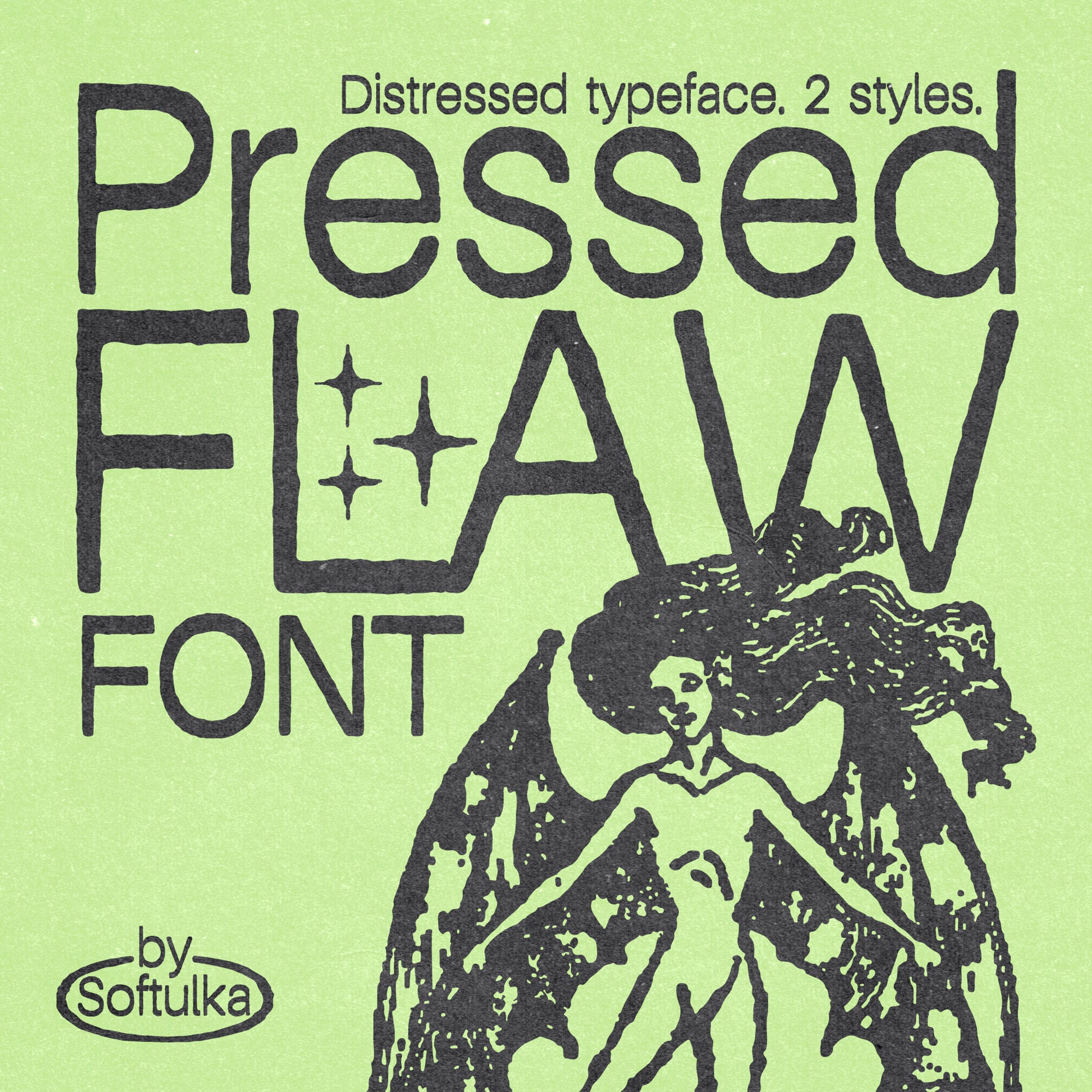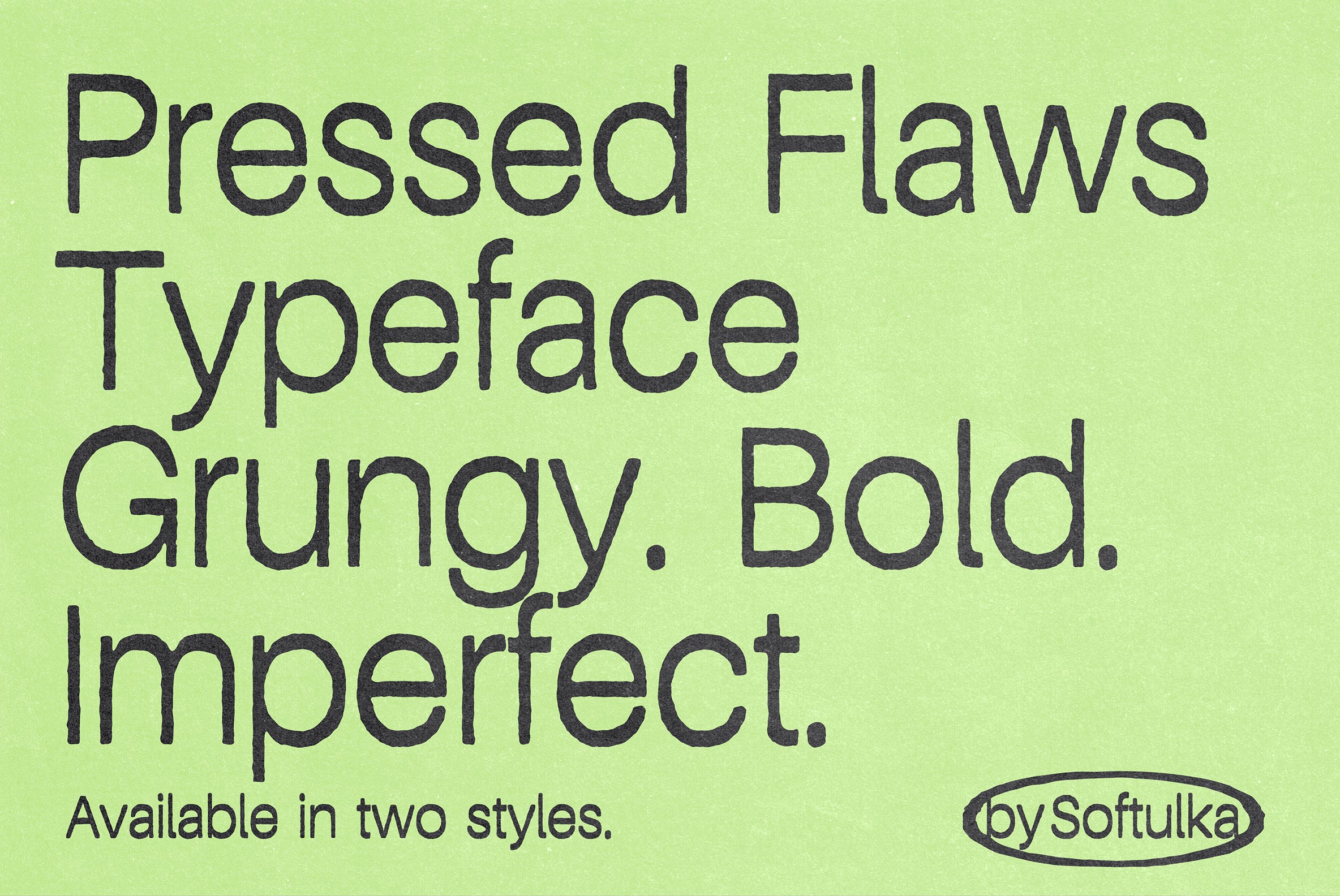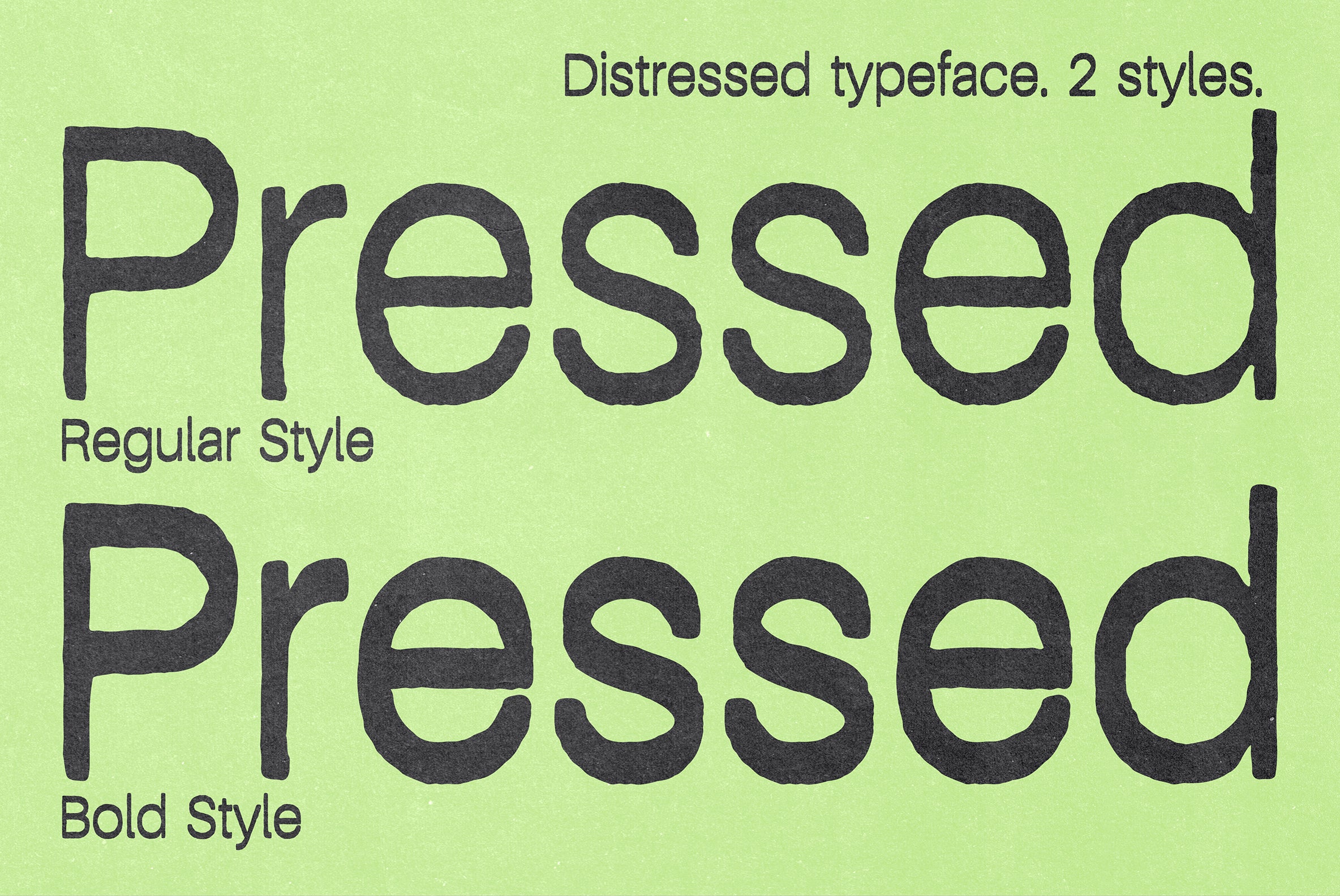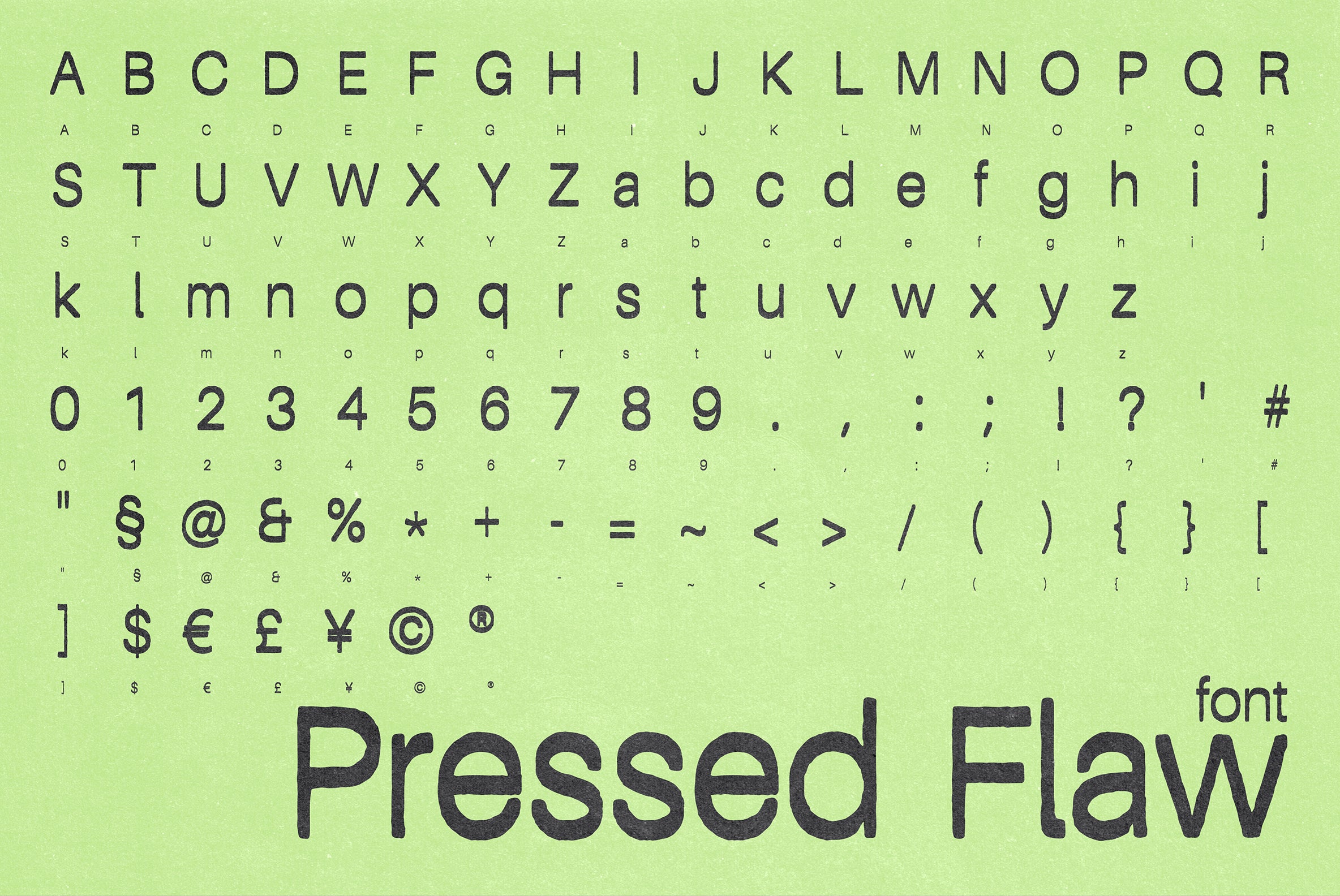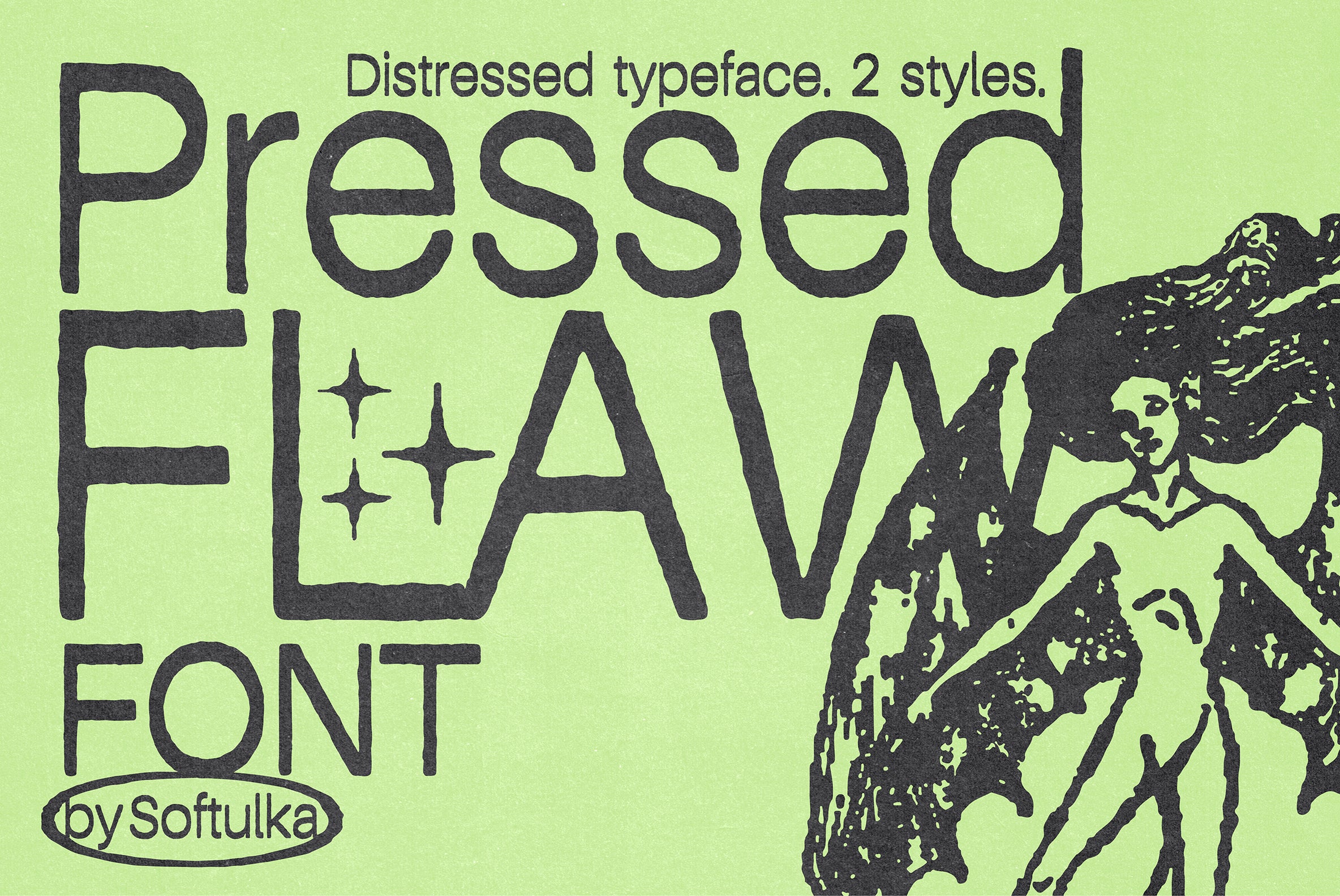
Pressed Flaws Textured Typeface
The Pressed Flaws Textured Typeface is a distressed font available in Regular and Bold styles, designed to mimic the imperfections of aged printing or a worn-out typewriter. It features grungy, uneven edges and an irregular texture, making it suitable for projects requiring a raw, vintage, or handcrafted look. The product includes 2 OTF, TTF, and WOFF files, along with a PDF preview.
Ideal for vintage-inspired graphic design and edgy branding projects. Perfect for posters, album covers, and display typography, ensuring a raw, industrial aesthetic that captures attention and evokes nostalgia.